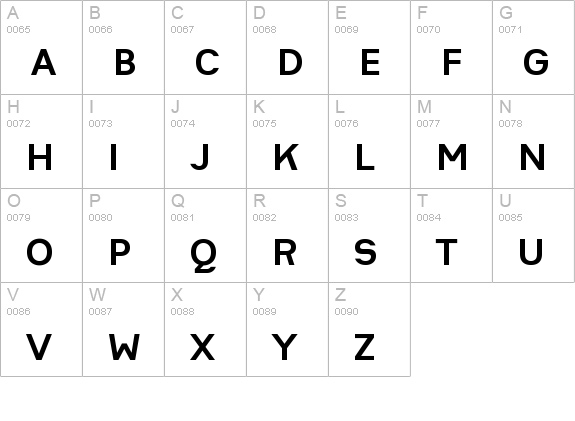
HeimatSans-Bold is a strong, high-contrast variant in the HeimatSans typeface family \xE2\x80\x94 well suited to headlines, attention-grabbing titles, and strong calls-to-action.
HeimatSans-Bold is a versatile and modern typeface that exudes strength and confidence. Its bold weight makes it perfect for headlines, titles, and other prominent text in both print and digital designs. The clean lines and geometric shapes give it a contemporary feel, while the slightly rounded corners add a touch of warmth and approachability. This font is the bold variant of the popular HeimatSans typeface family, designed to make a statement and capture the attention of the reader. Whether you're creating posters, logos, or branding materials, HeimatSans-Bold will ensure your message is delivered with impact. Best of all, HeimatSans-Bold is available for free download at FontsMarket.com. This means you can easily access this high-quality font and incorporate it into your projects without any cost. Don't miss out on the opportunity to enhance your designs with the bold and striking HeimatSans-Bold font.